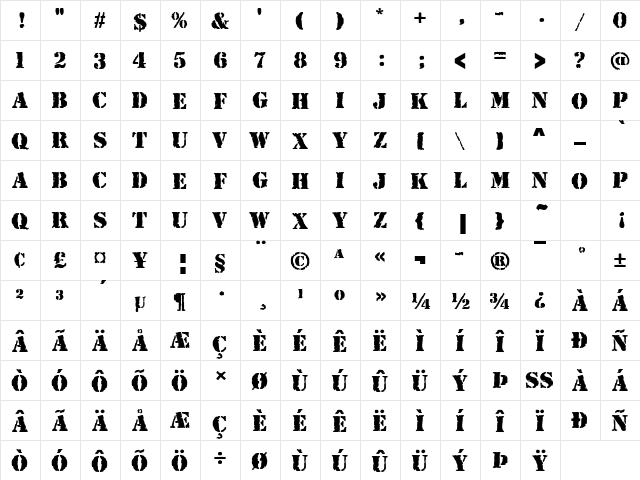
RudakiT Regular
Design Context for RudakiT Typeface
RudakiT is a composed and adaptable typeface that performs quietly and consistently across a wide range of design contexts.
Pro Tip: Use RudakiT in both headline and body roles to test its range before committing to a single application.